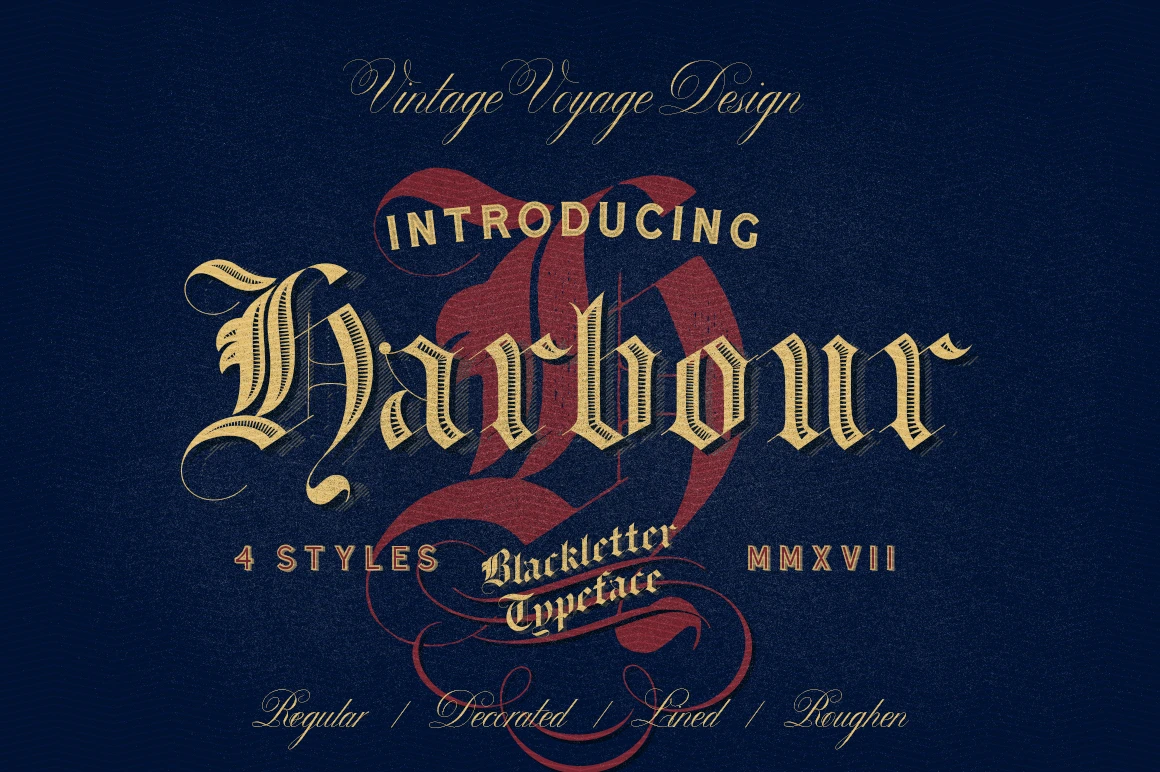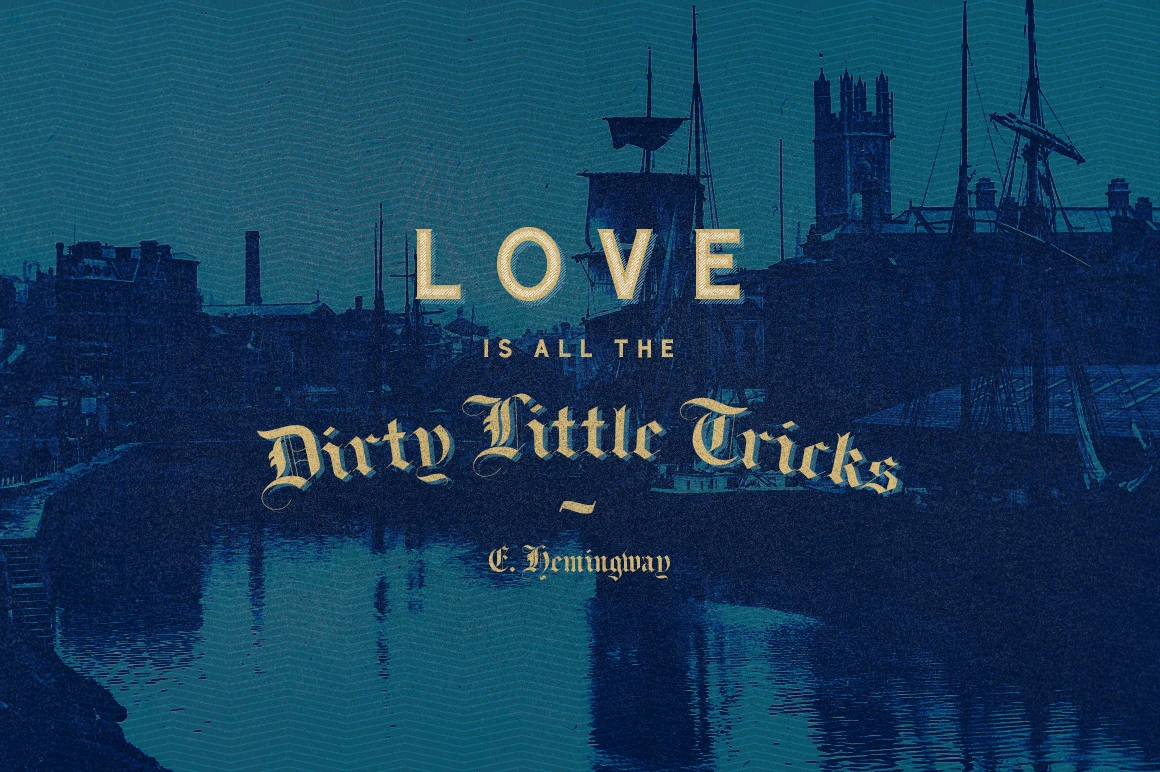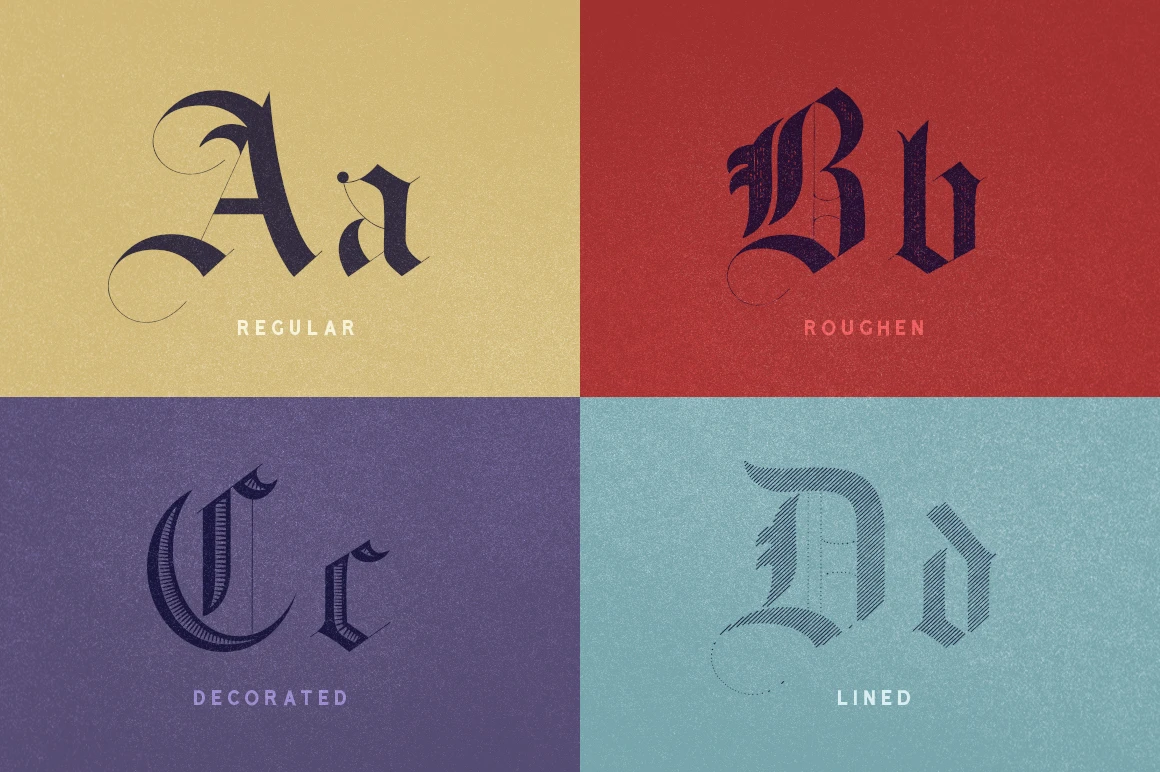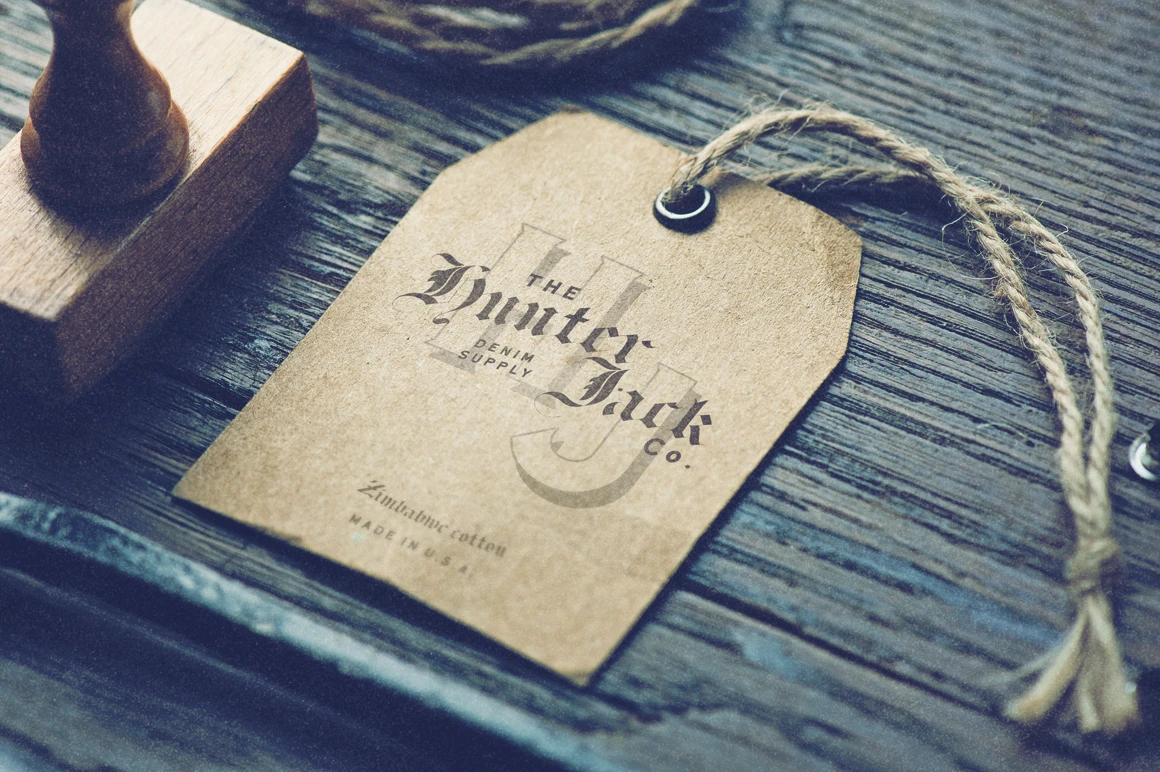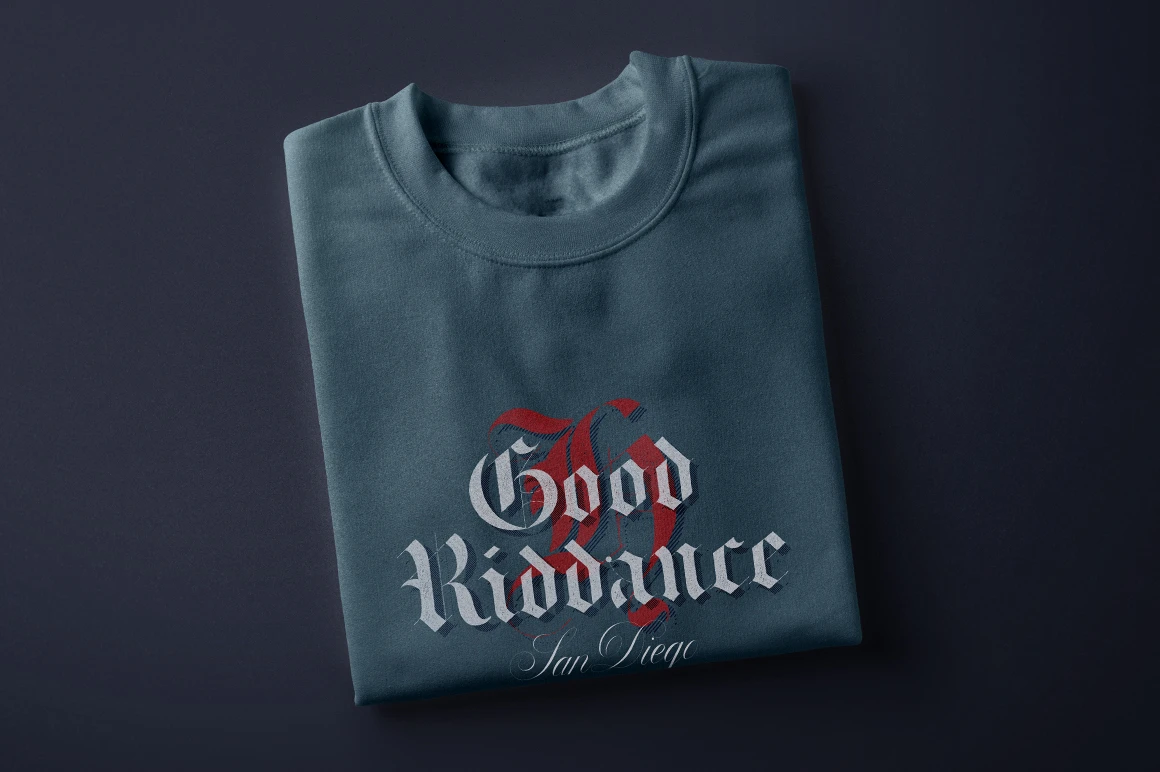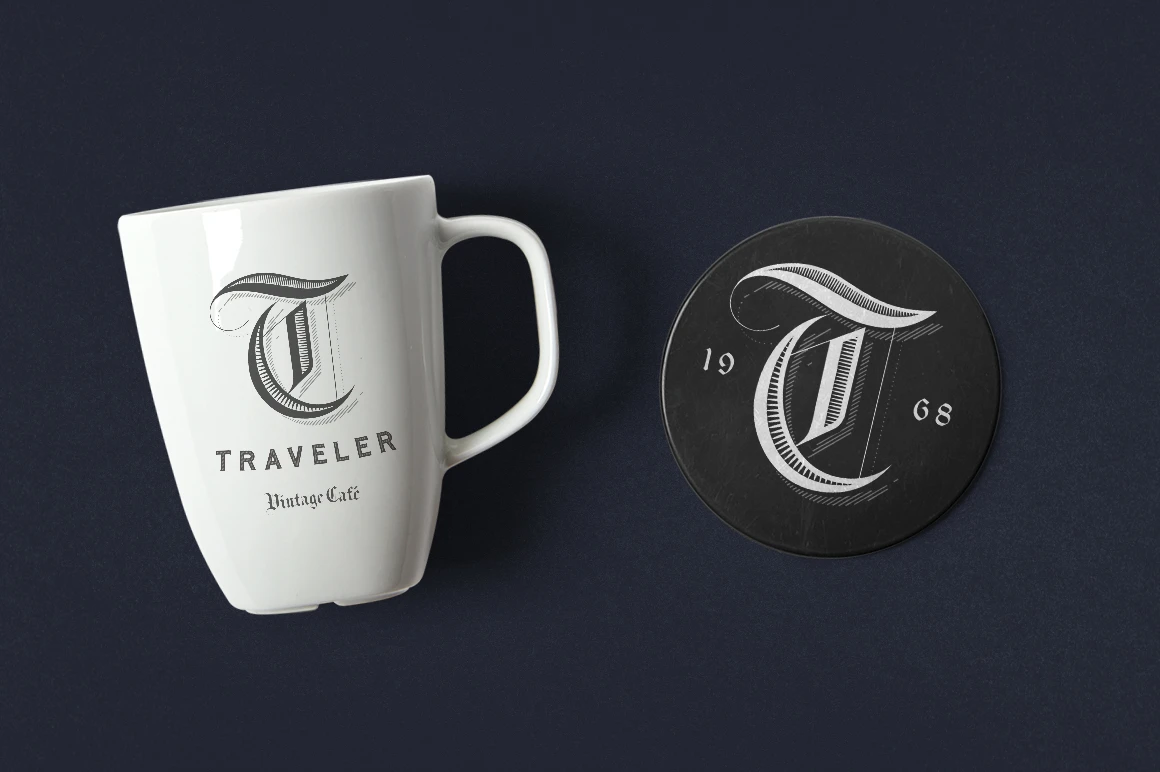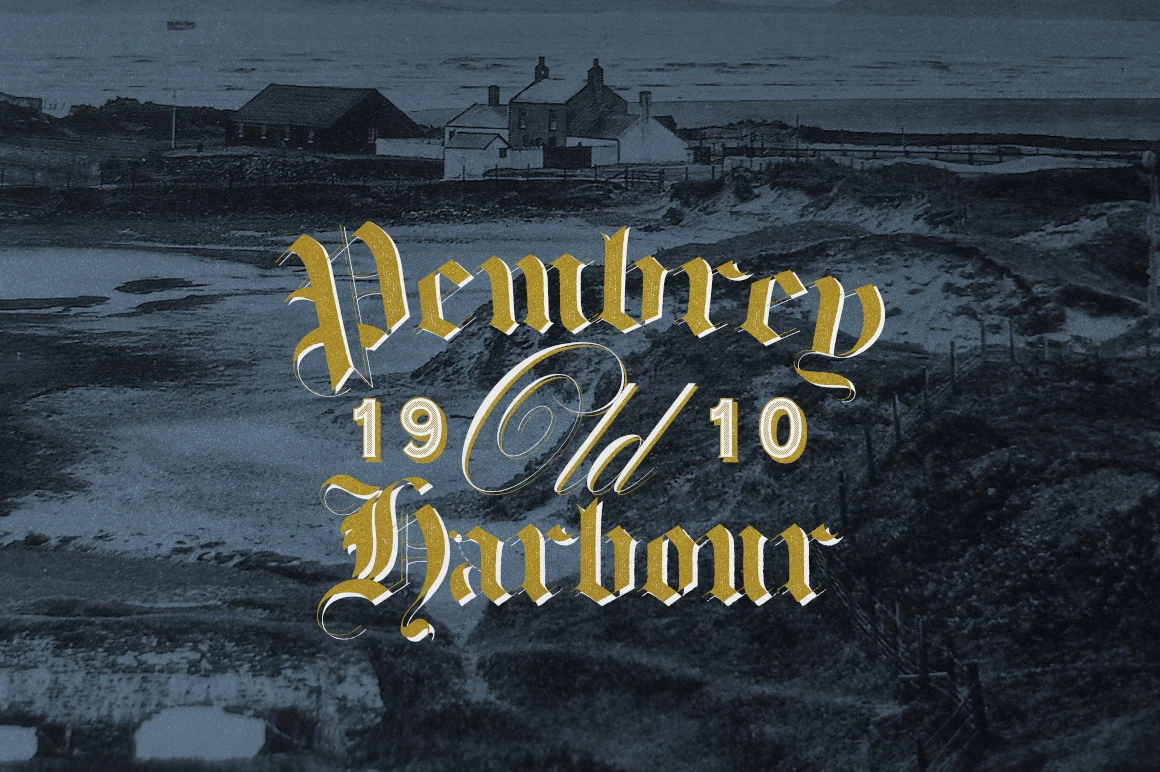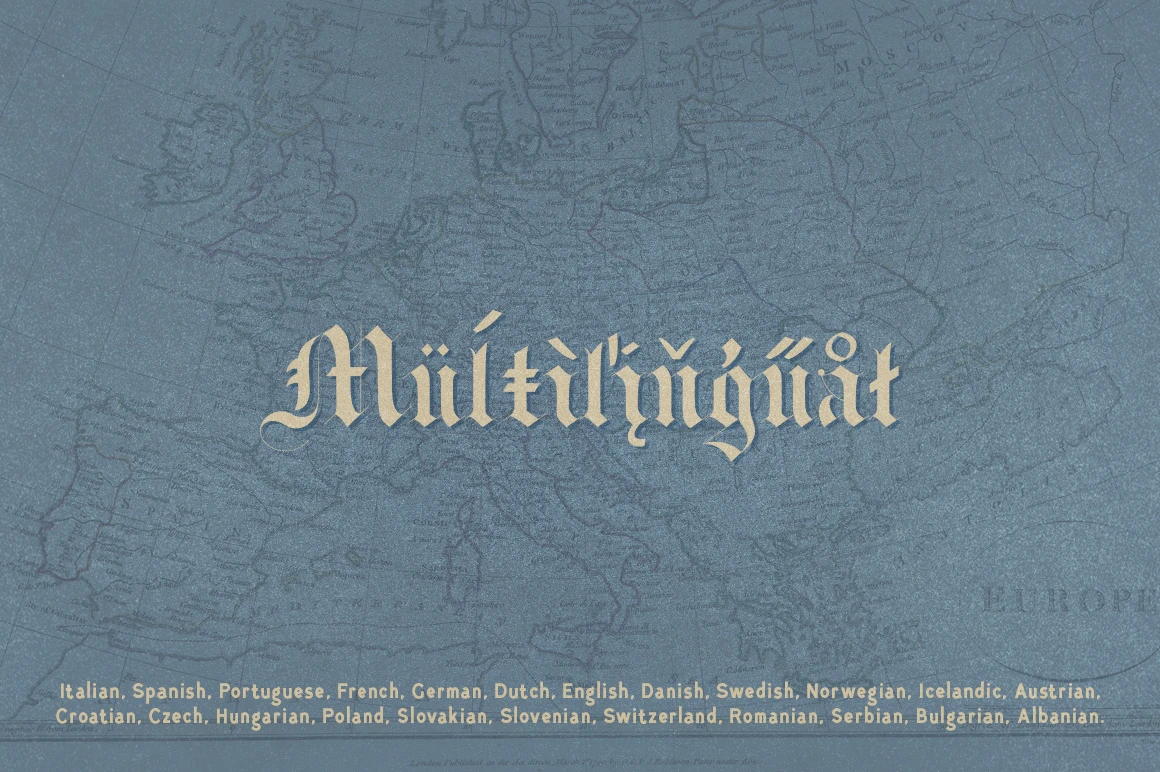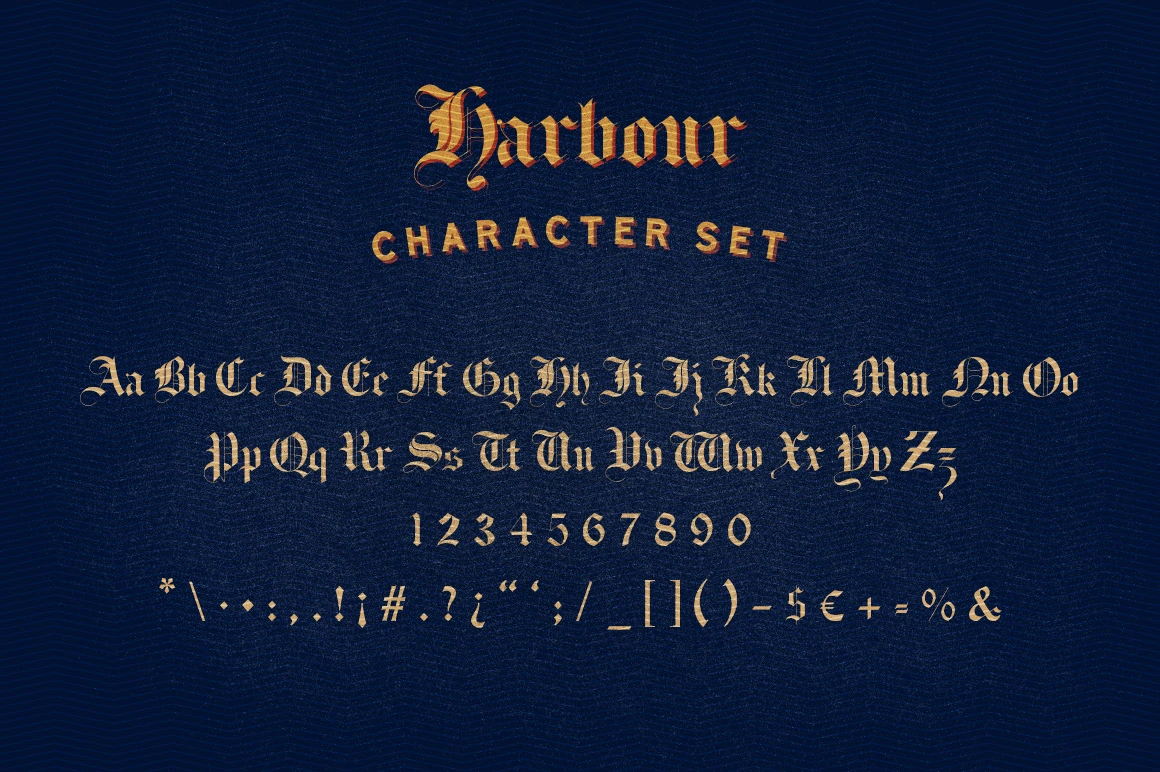
Harbour Font Family
Vintage Voyage Design’s Harbour is a classic blackletter design in two styles: Decor and Rough. Inspired by the high-contrast lettering that might be found on copperplate engravings from the 19th century and earlier. The sharp contrast and inline detail of Harbour Decor and the texture of Harbour Rough give an authentic hand-lettered feel. Harbour is ideal for vintage logos and brands, pub signage, thrifted apparel labels and t-shirts, and masked ball party invitations.
Styles included • Decor • Lined • Regular • Rough
Harbour font styles
Harbour Decor
Harbour Lined
Harbour Regular
Harbour Rough